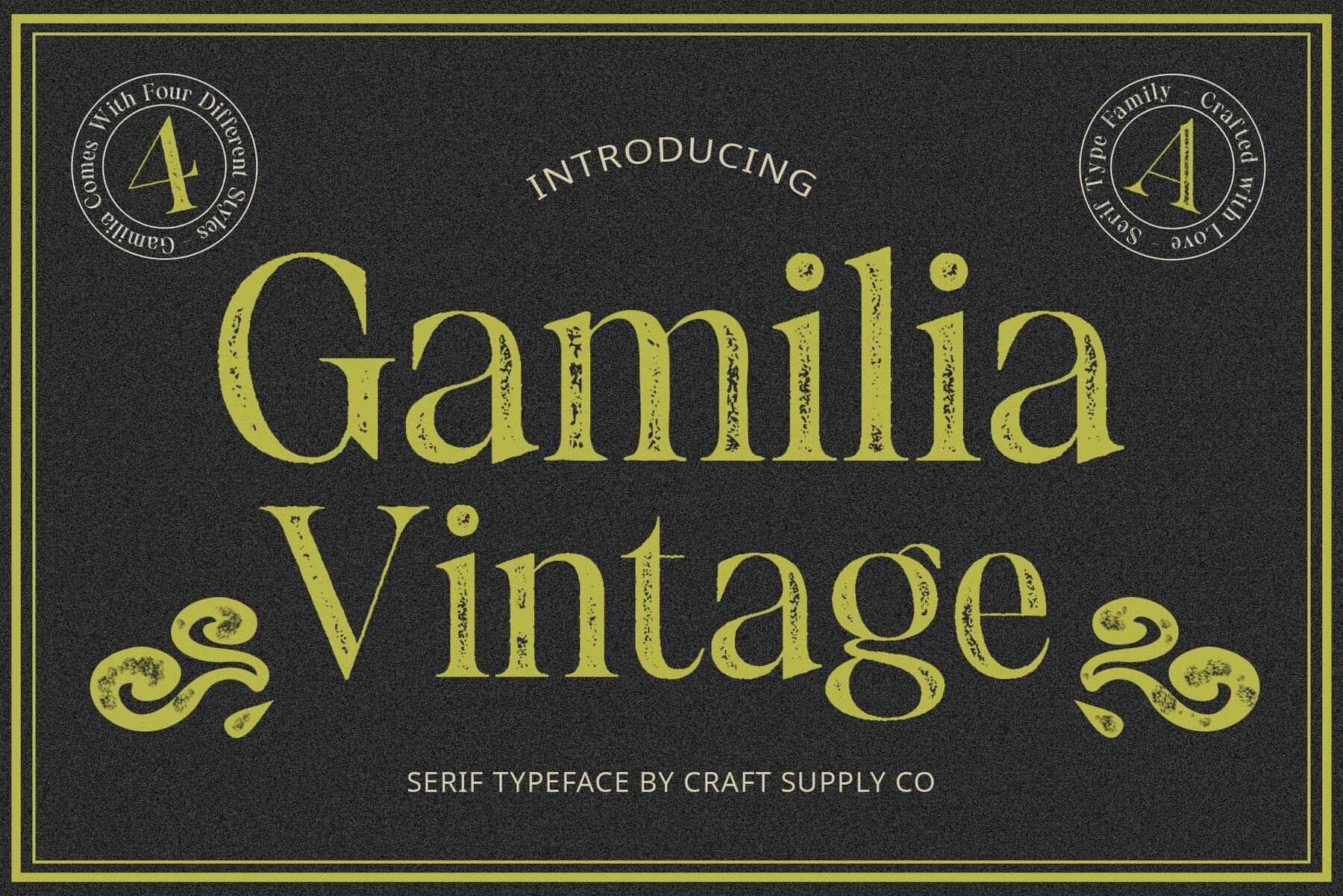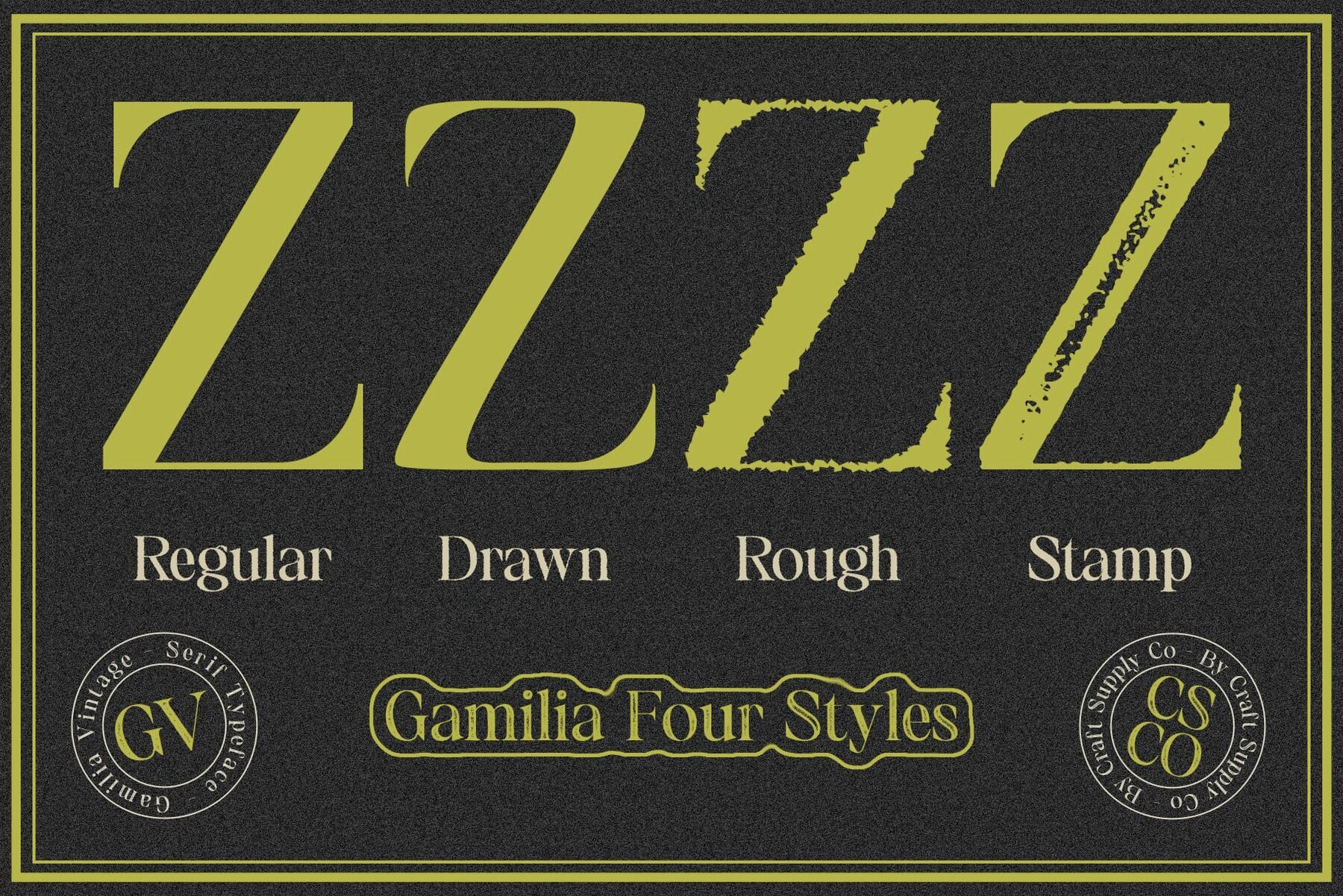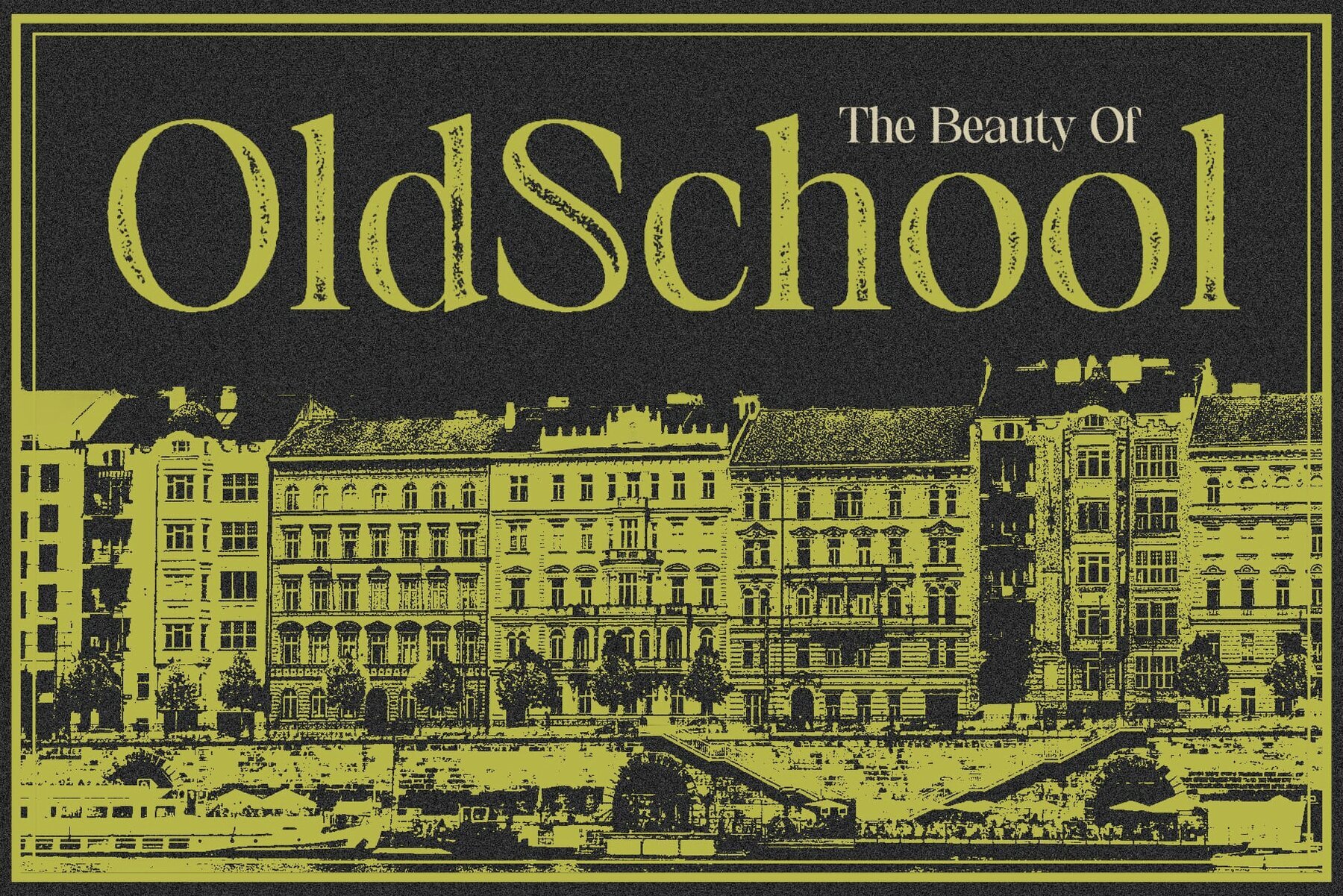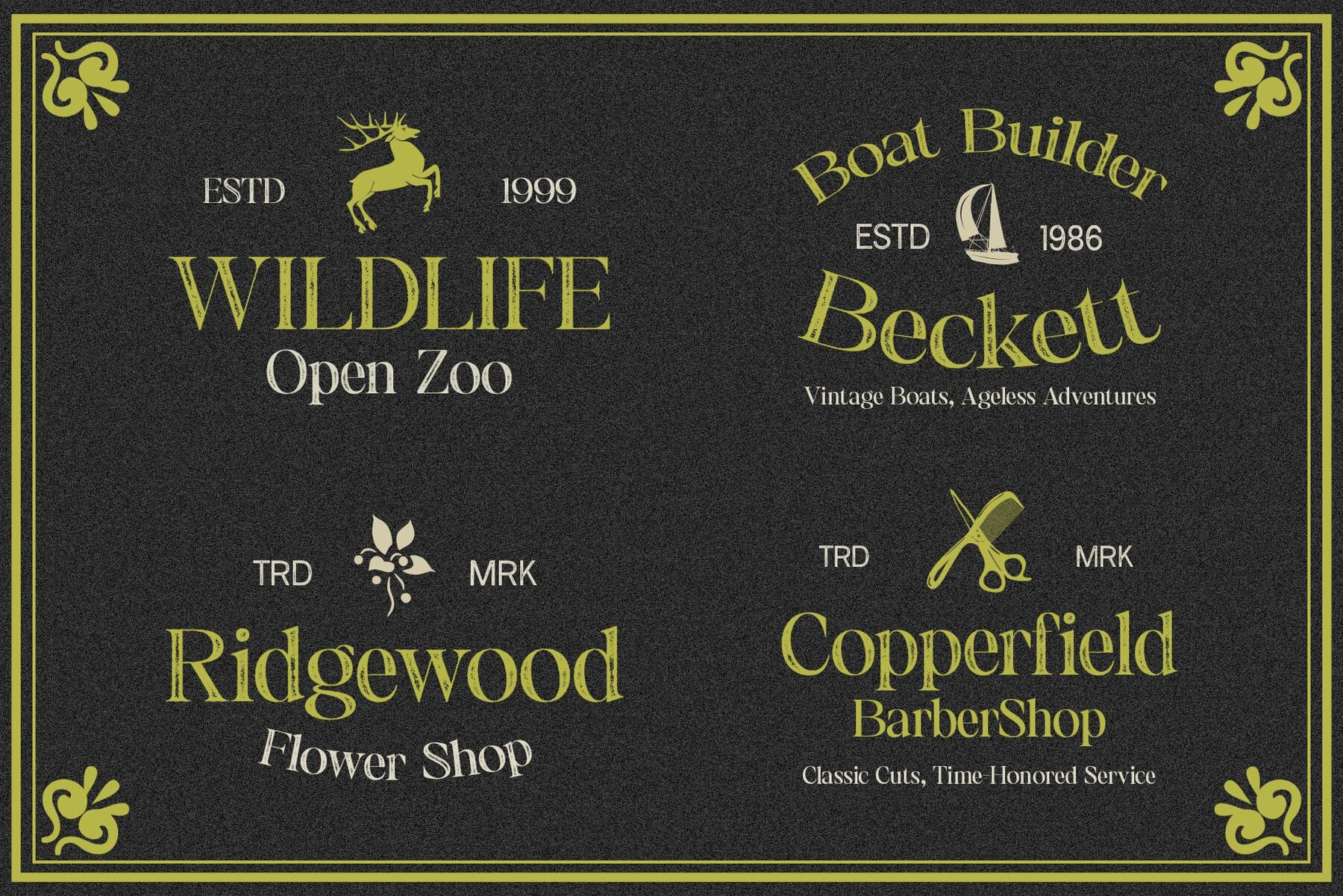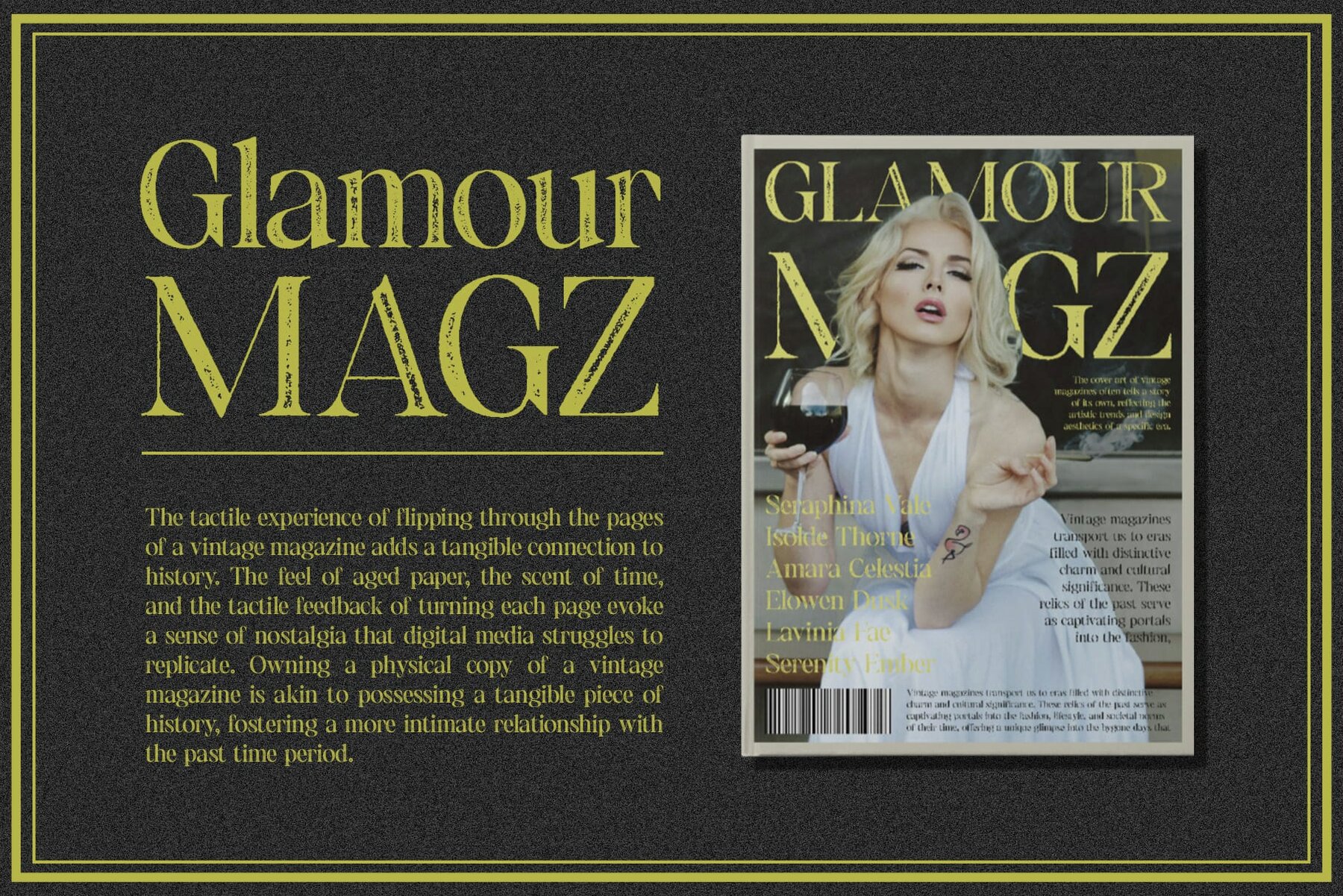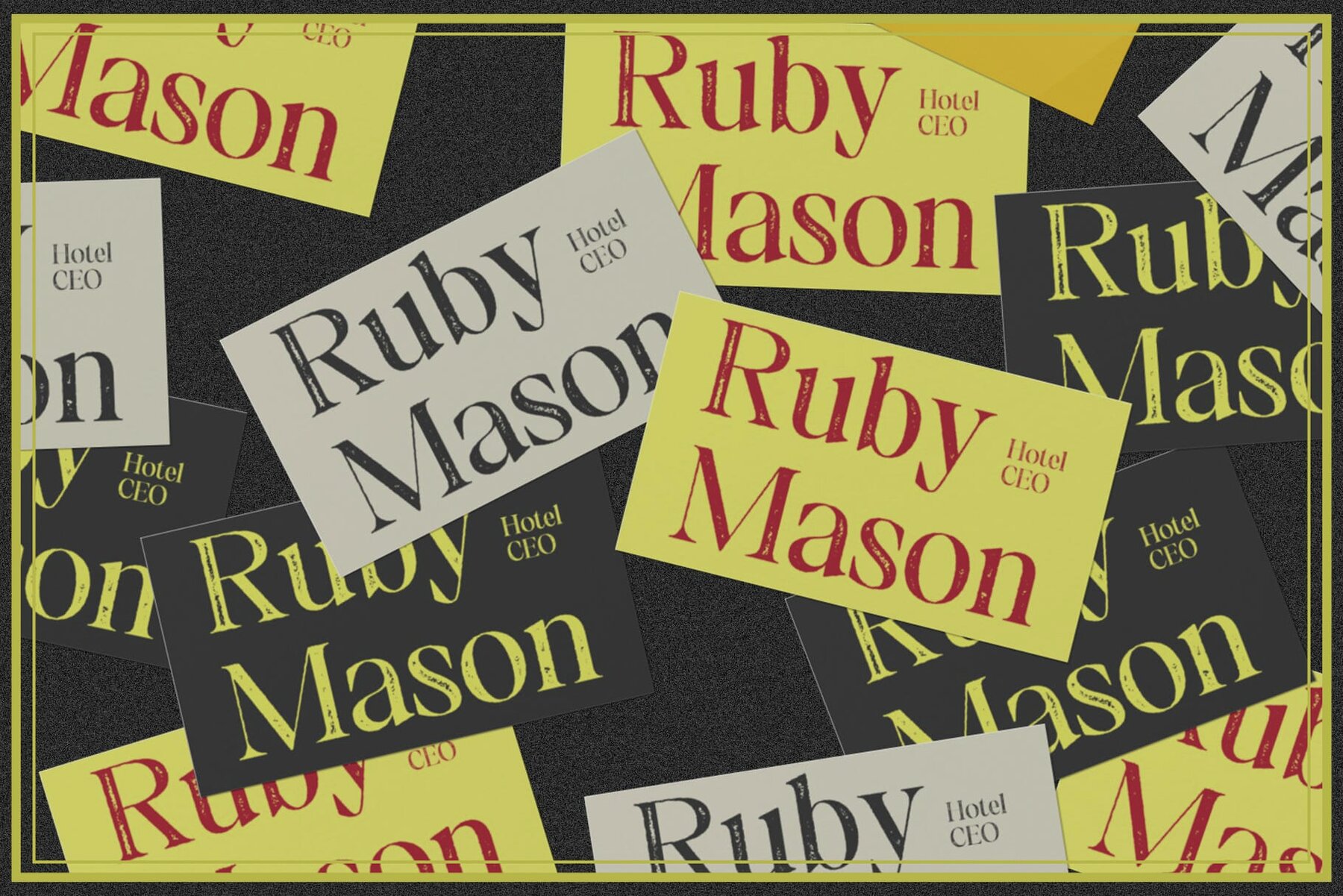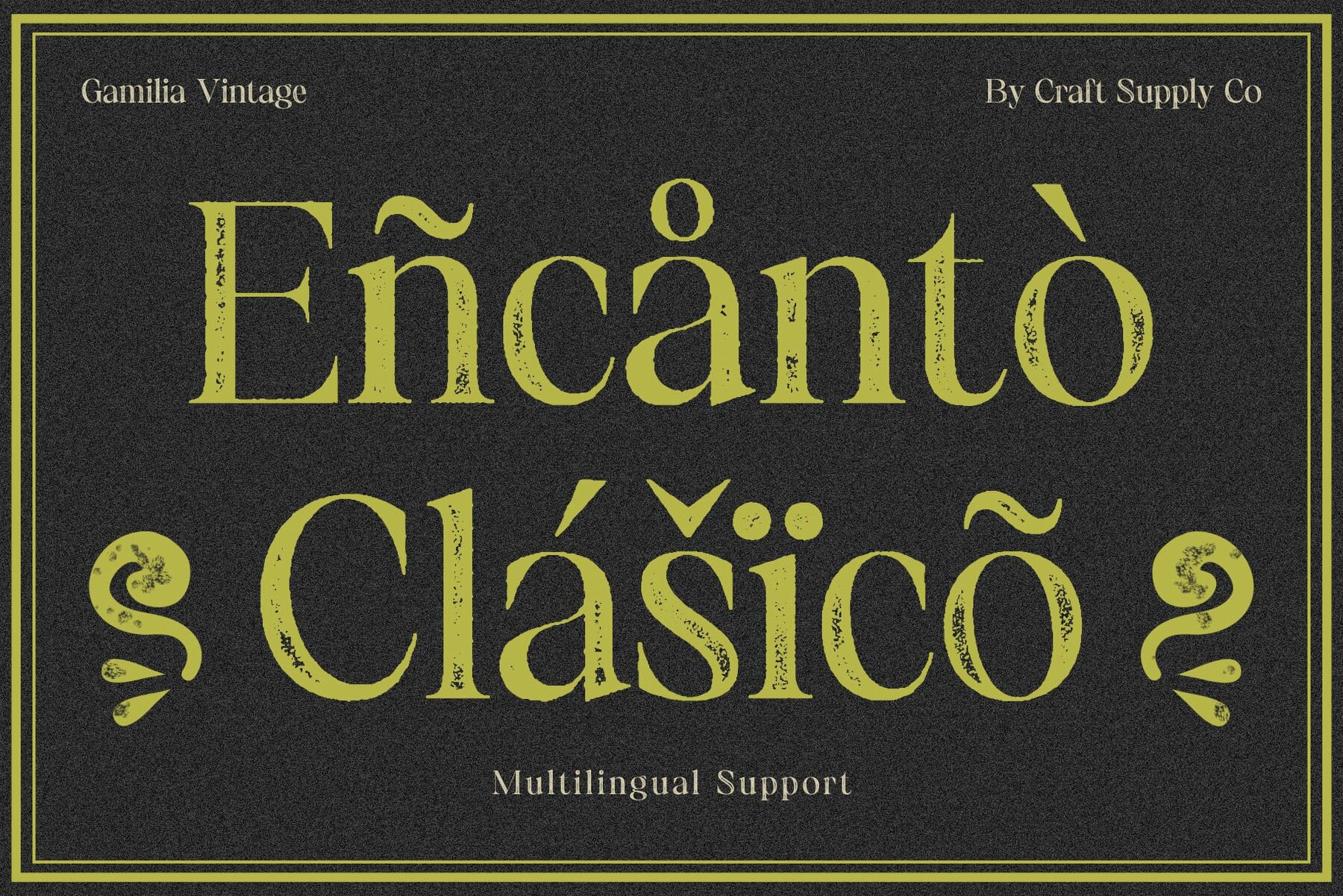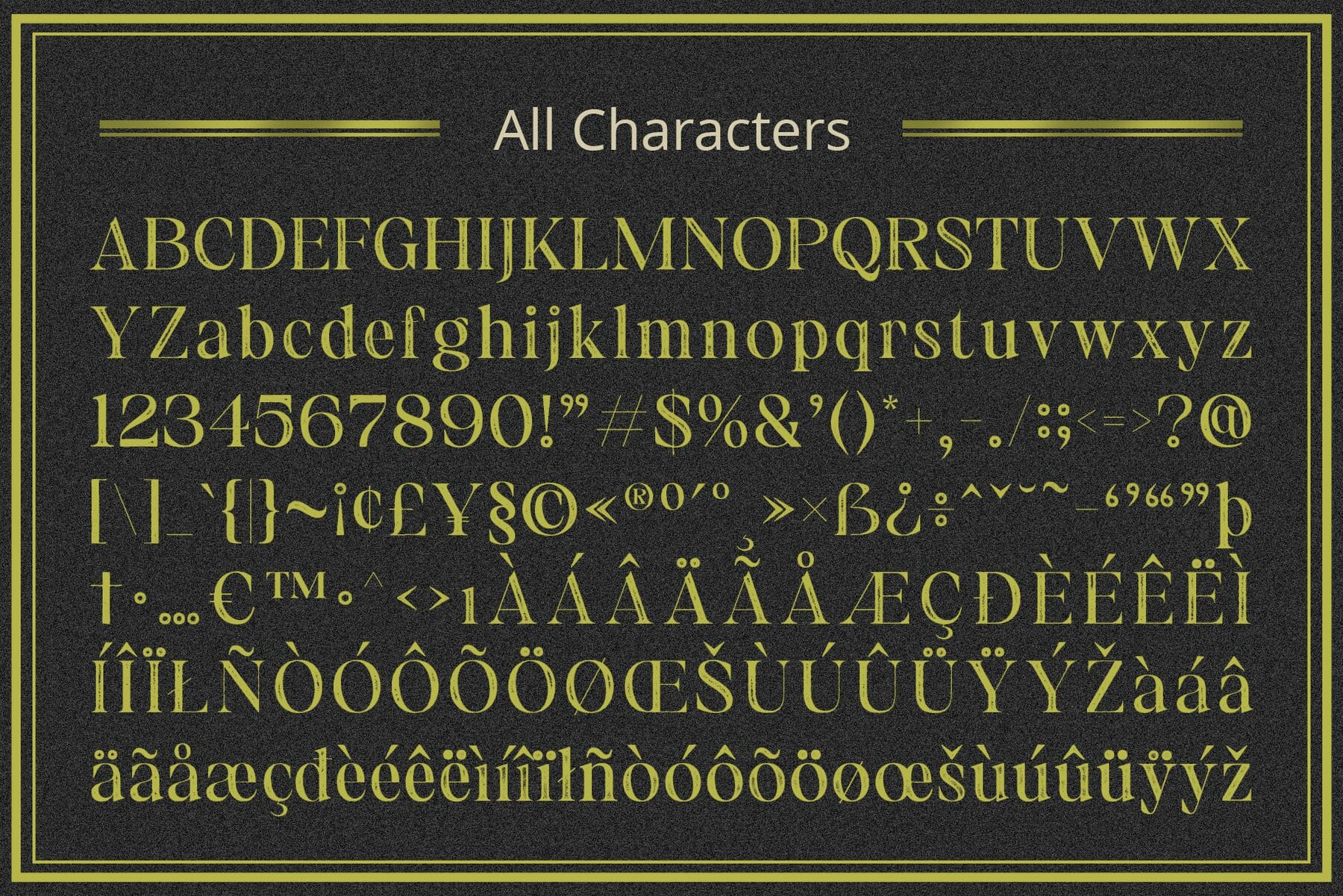
Gamilia Vintage Font
Gamilia Vintage is a serif display font that effortlessly captures the essence of the past, taking you on a nostalgic journey. The font's serif structure pays homage to classic typography, adding a touch of enduring charm to your designs. Gamilia Vintage strikes a balance by infusing vintage vibes with a modern twist, making it relevant for contemporary design needs. Whether it’s reviving retro branding or adding a vintage flair to your editorial layouts, Gamilia Vintage offers endless possibilities for creative expression. In a world where trends come and go, Gamilia Vintage stands as a testament to timeless design. Embrace the vintage allure with this font, where every letter tells a story of elegance and nostalgia. No specialized software is needed to utilize this typeface. For any inquiries or assistance, please don’t hesitate to get in touch. We appreciate your support in making your creative projects shine!Gamilia Vintage: Timeless Elegance in Every Letter
A Nod to Nostalgia
Vintage Vibe, Modern Appeal
Endless Possibilities